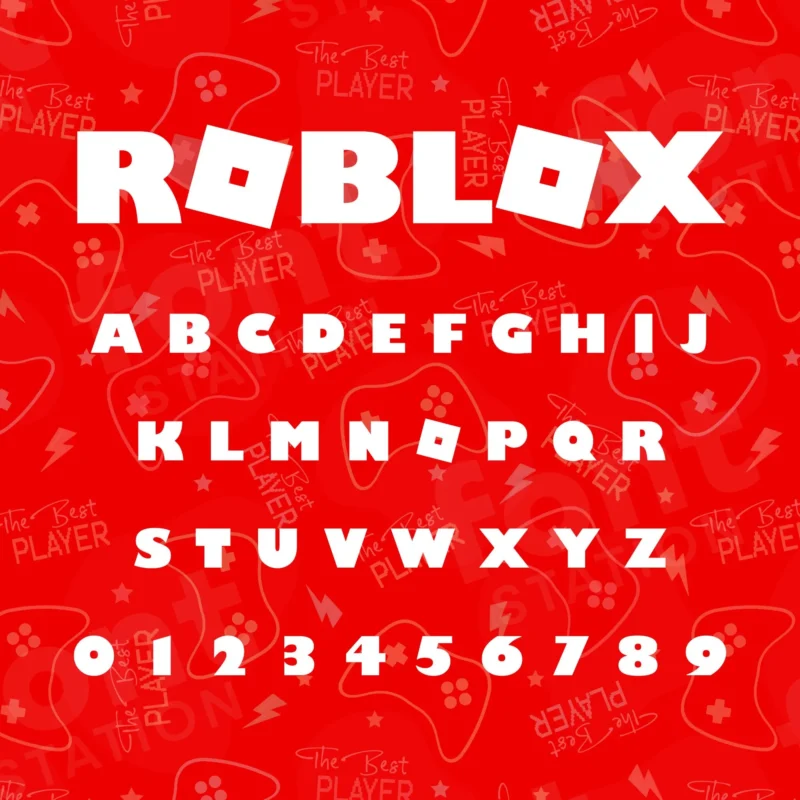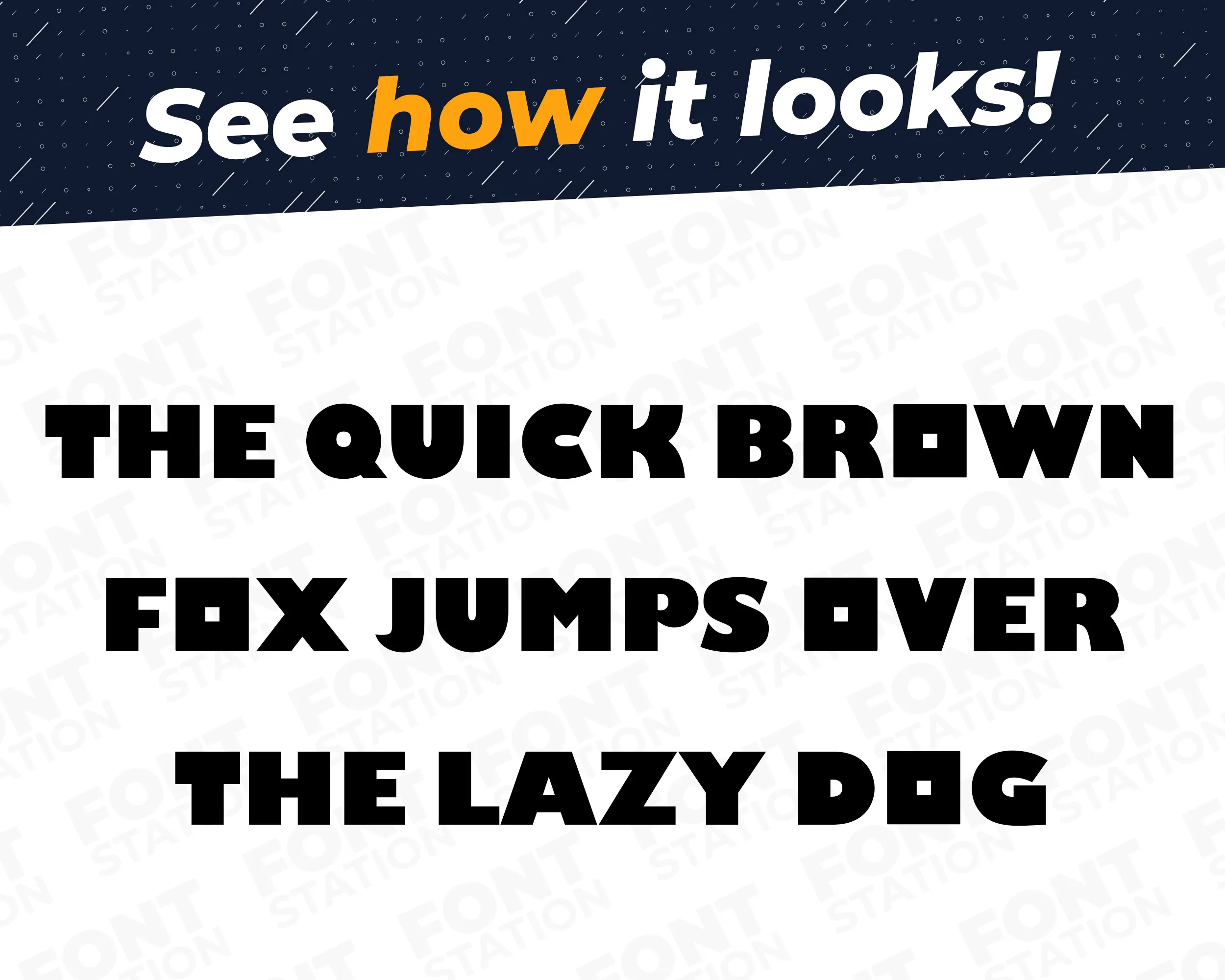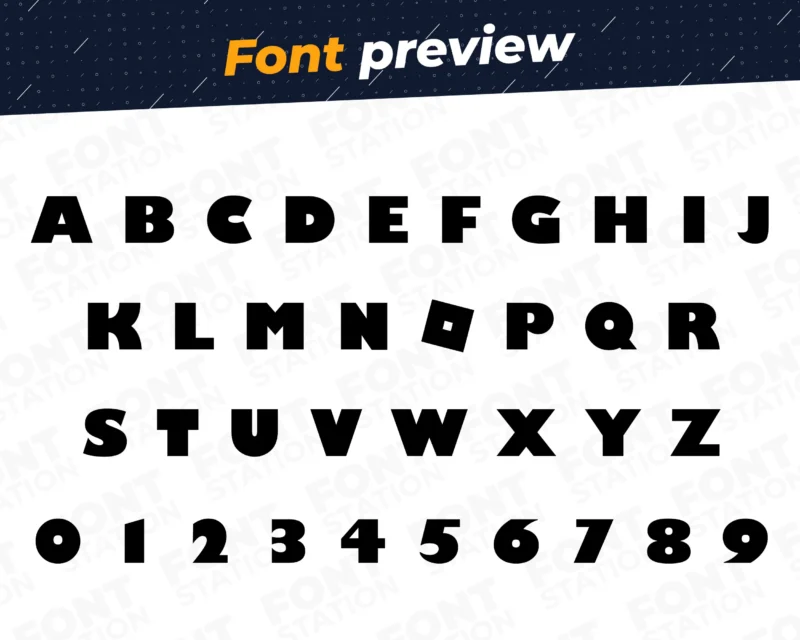
Our Roblocks Game typeface, inspired from Roblox font
Grab your computer, tablet or other device and start creating right now with our Roblox font letters! Our Roblocks typography is inspired from Roblox game font, making it ideal for various digital creations (logo, word…), sublimation, cake toppers, stickers, event decorations, and more.
Roblox Font